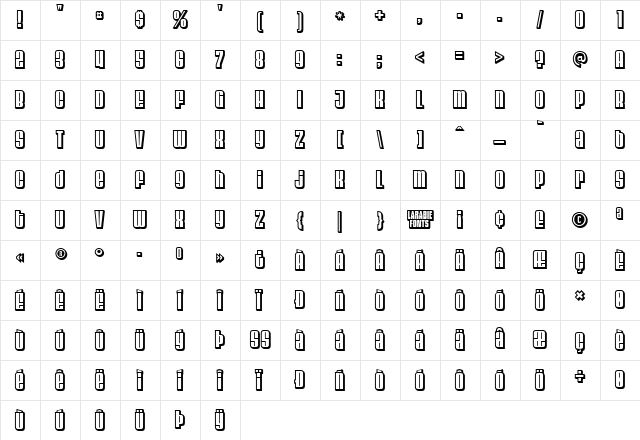
Velvenda Chill
Design Context for Velvenda Typeface
Velvenda is a composed and adaptable typeface that performs quietly and consistently across a wide range of design contexts.